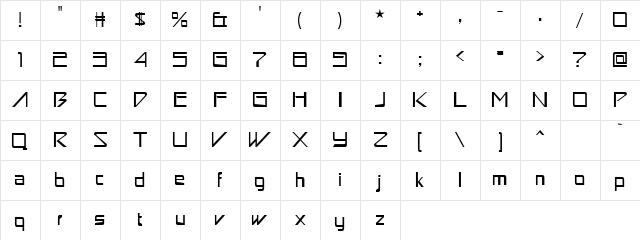
Brain in Chain Regular
Design Context for Brain in Chain Typeface
Brain in Chain is a composed and adaptable typeface that performs quietly and consistently across a wide range of design contexts.